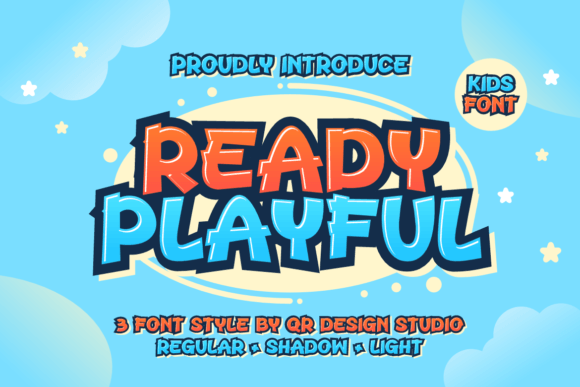
Dive into the enchanting realm of Ready Playful Font, a display font designed to mesmerize and engage your audience. Experience the magic as it transforms your creative visions into captivating designs, leaving a lasting impression on your viewers. With its modern and whimsical style, Ready Playful Font is the ultimate choice for captivating logos, headers, posters, social media graphics, and any project that demands a touch of playful sophistication. Ready Playful Font will take you on a journey of creativity, enabling you to express your ideas with flair and imagination.
Conjure up a world of enchantment with Ready Playful Font. Its meticulously crafted characters dance across the screen, evoking a sense of wonder and curiosity. Each letterform is a carefully orchestrated stroke of genius, designed to captivate and inspire. As you type, you'll feel as if you're weaving a spell, casting words that dance and shimmer before your eyes.
Step into a realm where imagination knows no bounds. With Ready Playful Font, you'll embark on an artistic odyssey, where every project becomes an extraordinary adventure. Create logos that leap off the page, headers that command attention, and social media graphics that ignite conversations. Let your creativity soar as you explore the endless possibilities that await you with Ready Playful Font.
Harness the power of Ready Playful Font and elevate your designs to new heights. Engage your audience with captivating visuals that resonate with emotion and meaning. Make a statement, leave an impression, and create a lasting legacy with Ready Playful Font. Your designs will exude an aura of enchantment, capturing hearts and imaginations wherever they go.
Join the ranks of creative visionaries who have discovered the magic of Ready Playful Font. Let your imagination run wild as you embark on a journey of design excellence. With Ready Playful Font, you'll unlock a world of possibilities, transforming your creative dreams into tangible masterpieces. Embrace the whimsical, awaken the playful, and let your designs dance with delight.